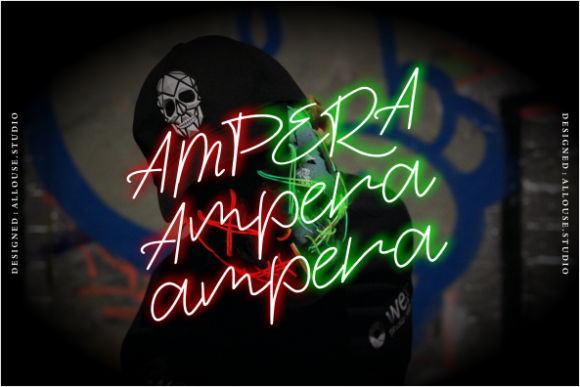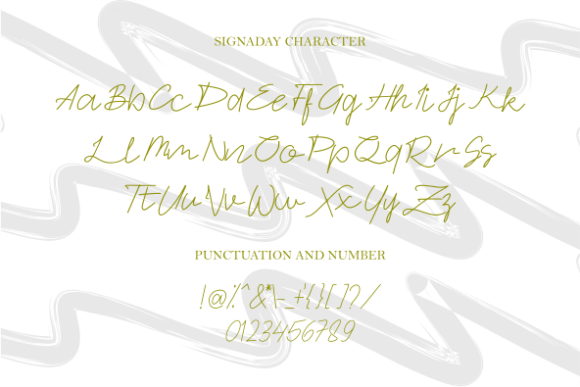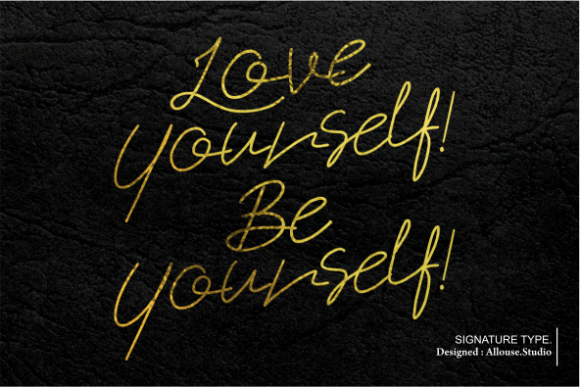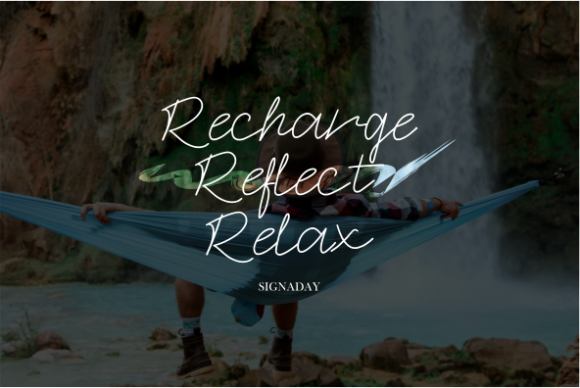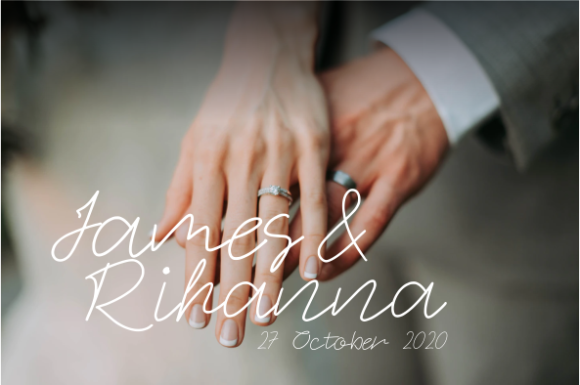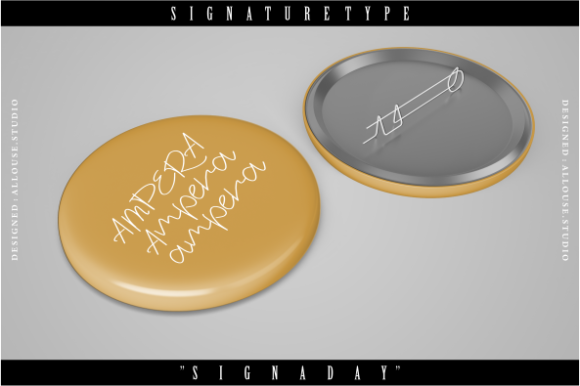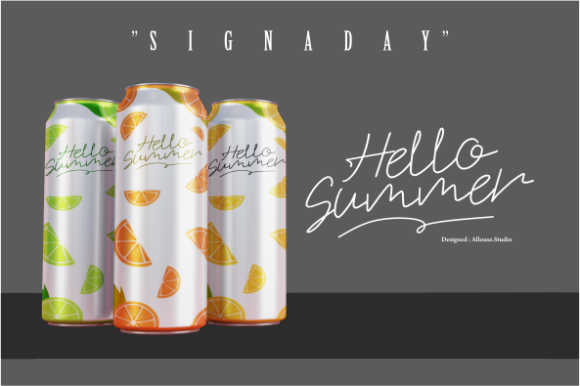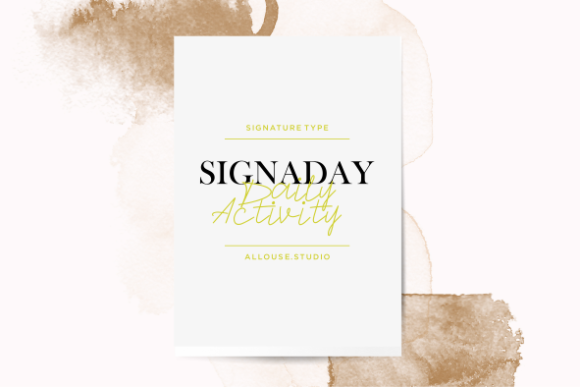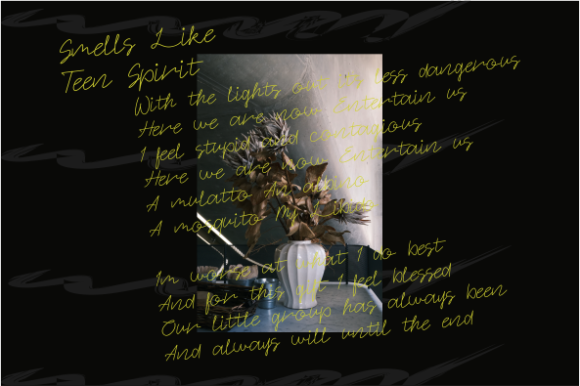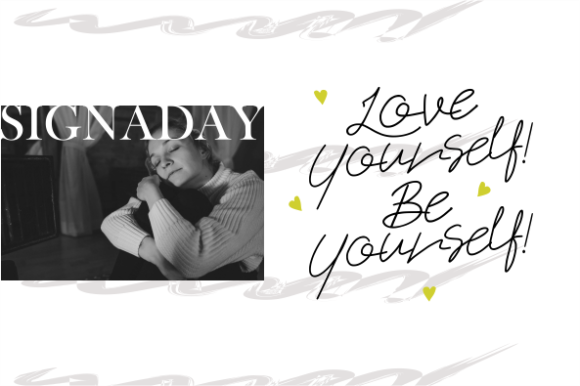
Signaday Font
About Signaday Font
Signaday is a stylish and delicate handwritten font. It has a clean, thin and smooth vibe and it will be a hit for any design that you want to add it to.
It is suitable for any branding, product packaging, invitation, quote, t-shirt, label, poster, logo that you wish to develop.